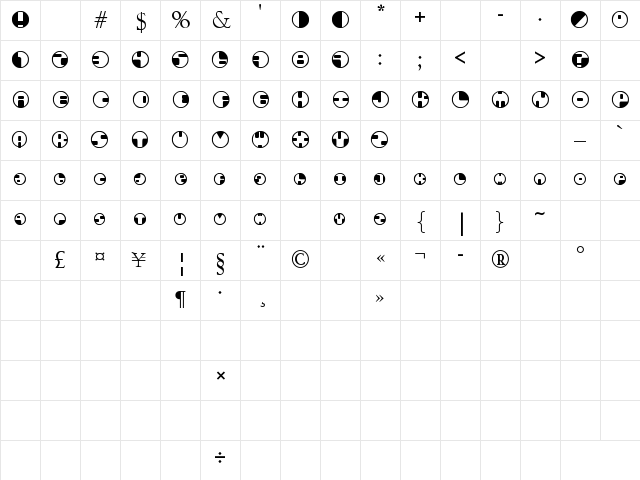
360 Regular
Design Context for 360
360 is a composed and adaptable typeface that performs quietly and consistently across a wide range of design contexts.